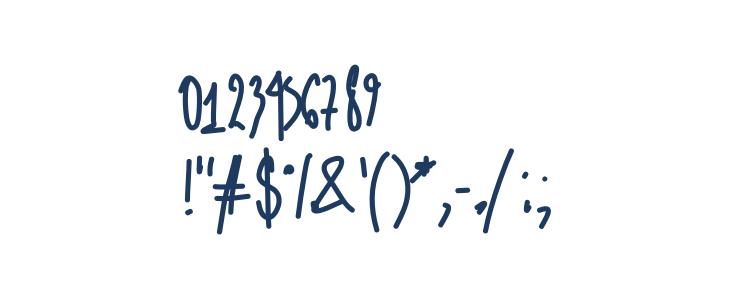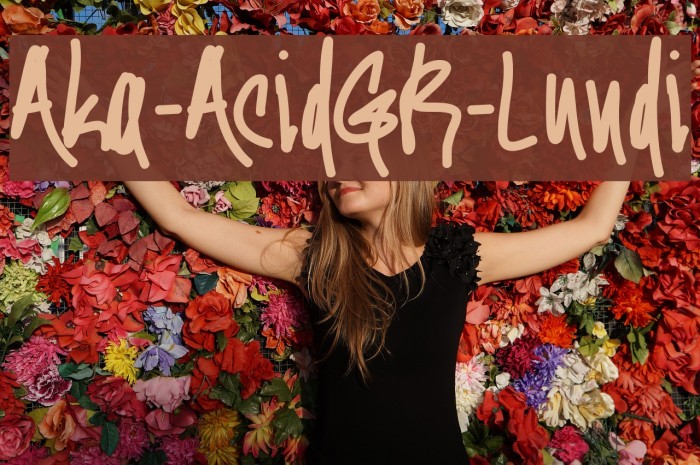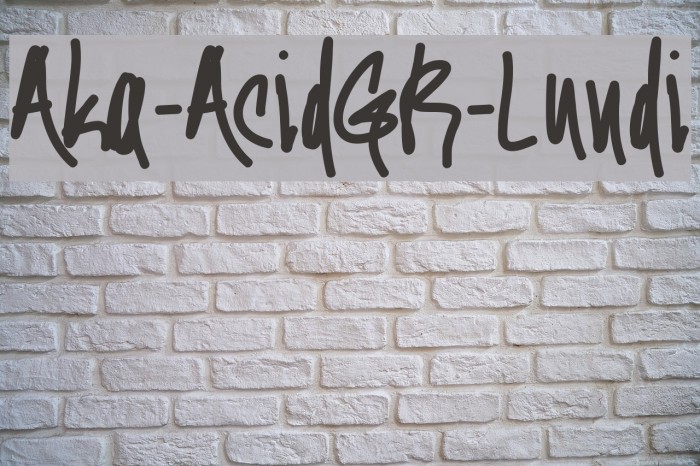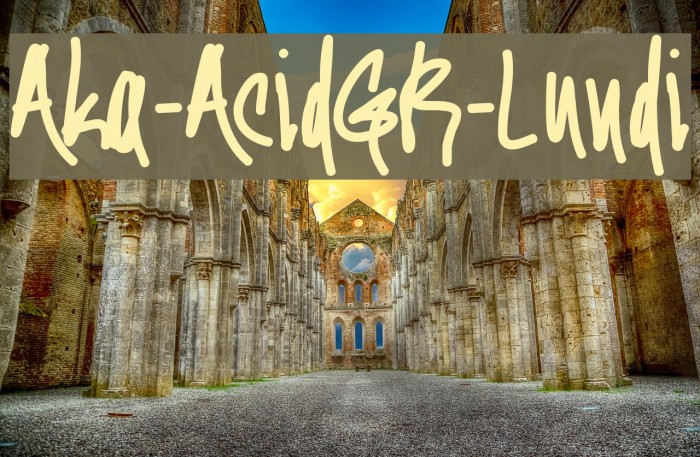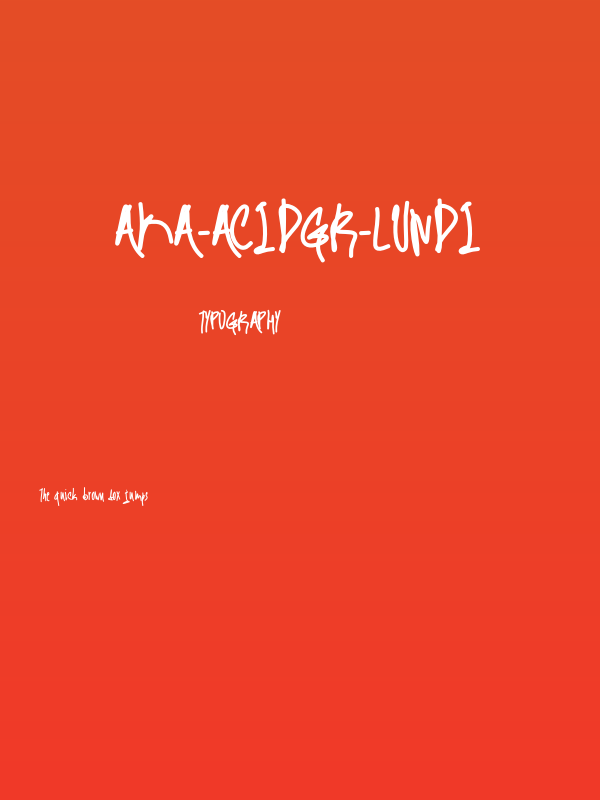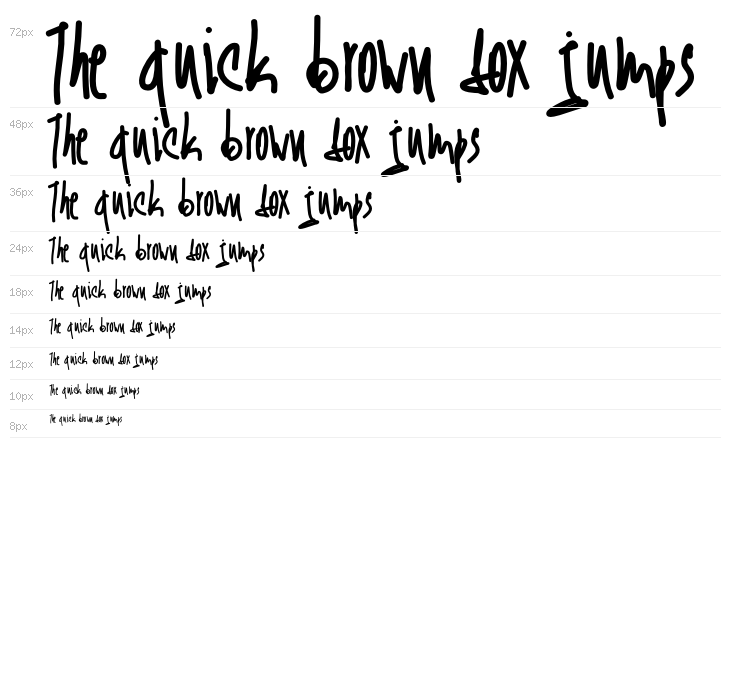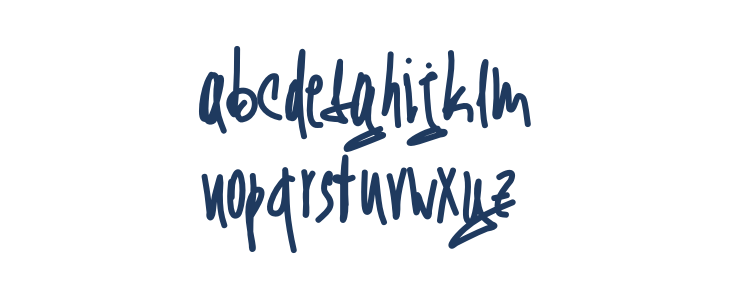
Aka-AcidGR-Lundi Font
Aka-AcidGR-Lundi Description
This font features a bold and expressive handwritten style, characterized by its dynamic and energetic strokes. The letters have a playful and informal appearance, with varying stroke widths that create a lively and spontaneous feel. The uppercase and lowercase letters are distinct, with some letters having unique flourishes and loops that add to the font's charm. The numerals and special characters maintain the same lively aesthetic, making the font versatile for creative projects. Its overall appearance is both artistic and approachable, suitable for designs that aim to convey a sense of fun and creativity.